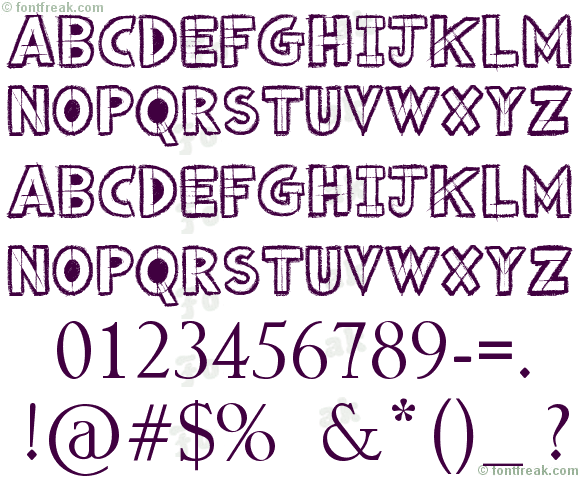
Drafting
The Drafting font, designed by Jonathan S. Harris in 2012, is a unique display typeface that embodies a hand-drawn aesthetic, making it perfect for creative projects that require a personal touch. As a decorative font, Drafting features irregular stroke weights and a playful, sketch-like quality that gives it an artistic flair. The letters are characterized by their slightly uneven spacing, which enhances the hand-crafted feel. This font includes distinctive blocky forms with subtle embellishments, reminiscent of traditional drafting techniques, lending a sense of authenticity and character.
Drafting is particularly well-suited for a variety of applications. It shines in contexts such as event posters, where its bold presence can capture attention and convey excitement. The font is also an excellent choice for branding purposes, especially for businesses seeking to communicate creativity and individuality. Small business owners in the arts and crafts sector will find Drafting useful for product labels and packaging, while graphic designers may leverage it for unique wedding invitations that stand out among traditional scripts. Additionally, its quirky style can enhance restaurant menus, giving them a friendly and inviting appearance.
The target audience for the Drafting font includes graphic designers, content creators, and small business owners who value originality and creativity in their projects. Whether you are designing a logo, promoting an event, or crafting marketing materials, this font offers a distinctive look that can elevate your design.